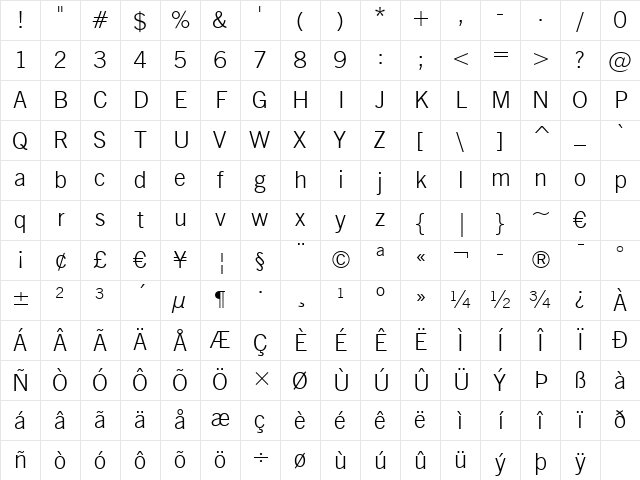
Complete NewsGoth Lt BT Light glyph index. Displaying only characters natively supported by NewsGoth Lt BT Light font.
NewsGoth Lt BT is a composed and adaptable typeface that performs quietly and consistently across a wide range of design contexts. Its slender proportions lend an understated elegance to any composition.